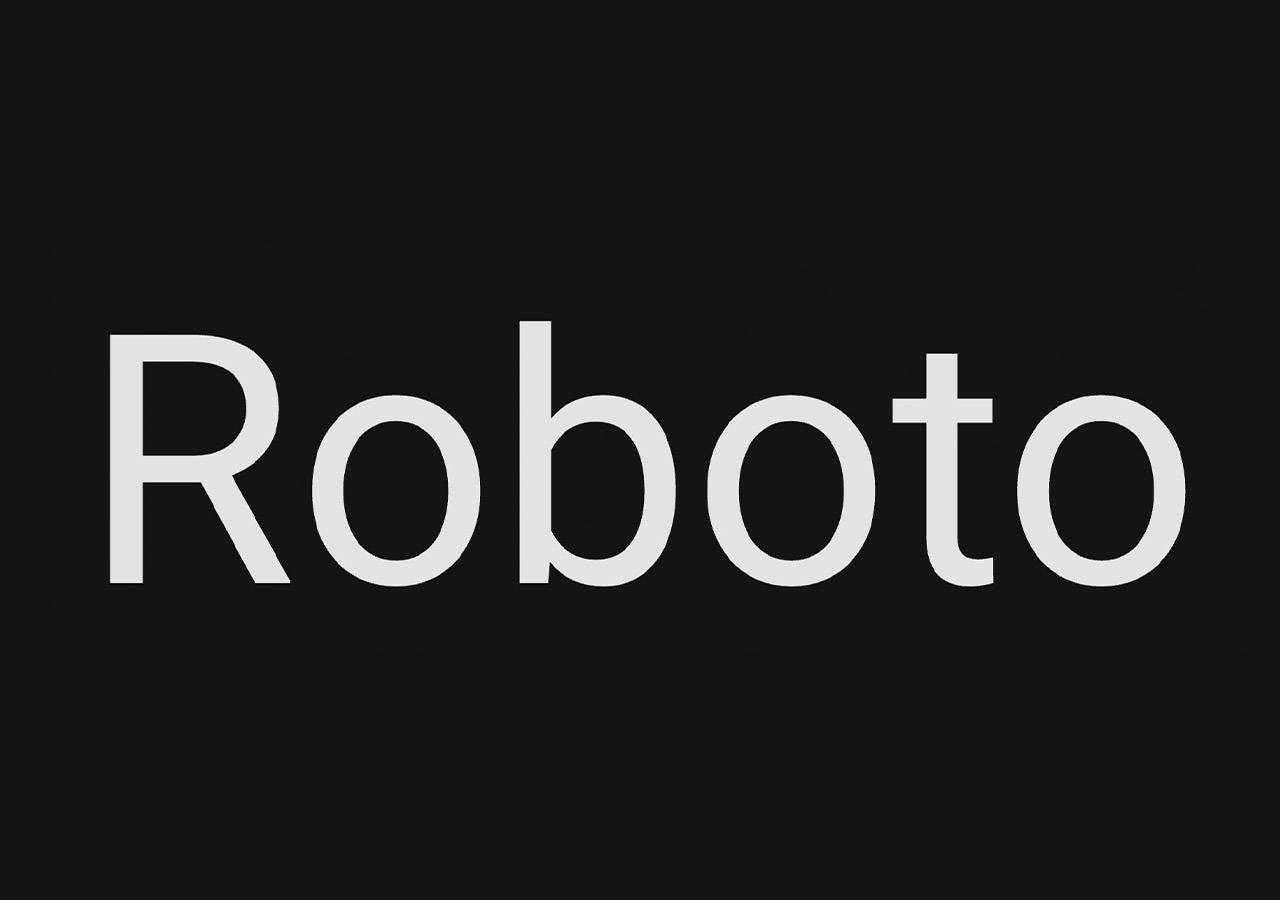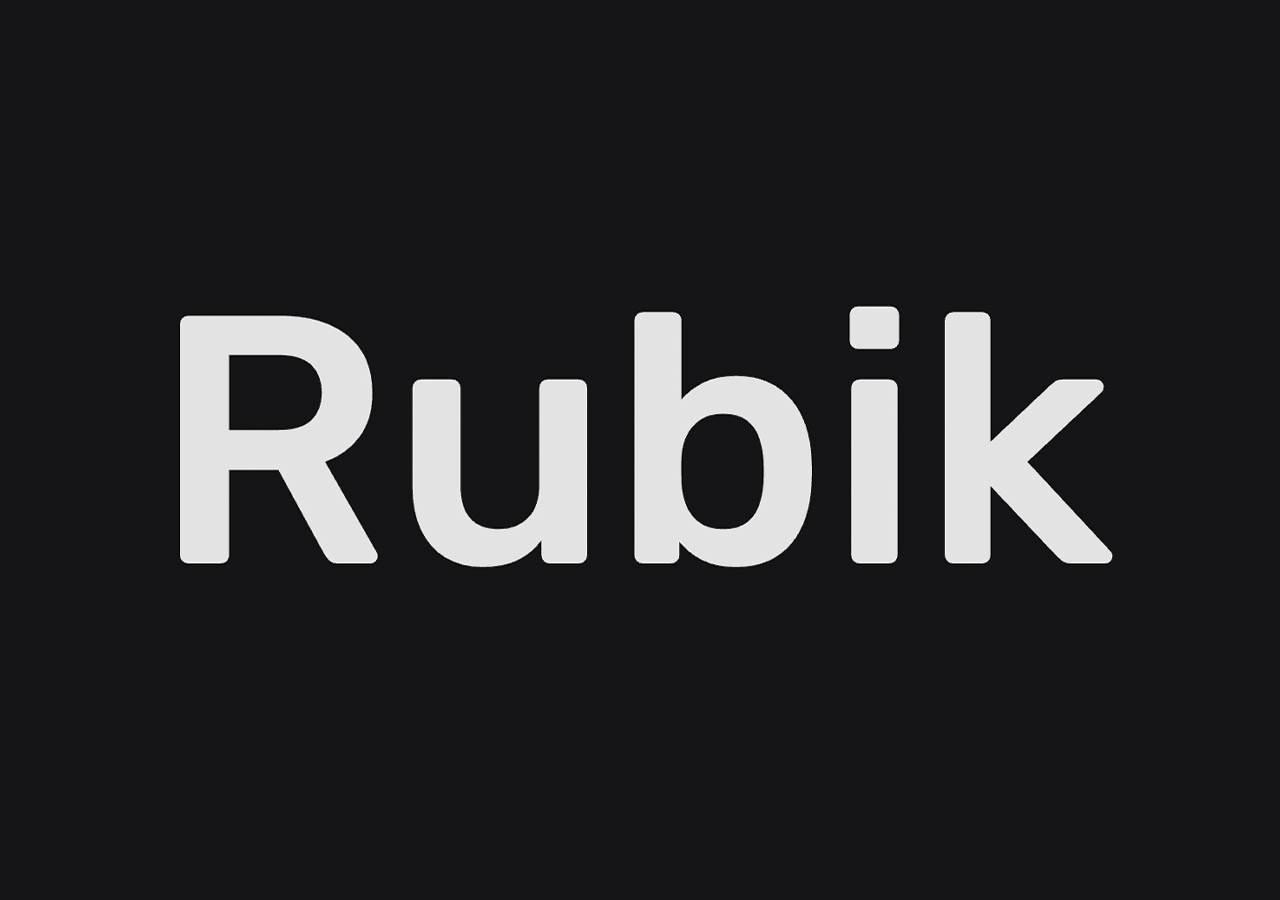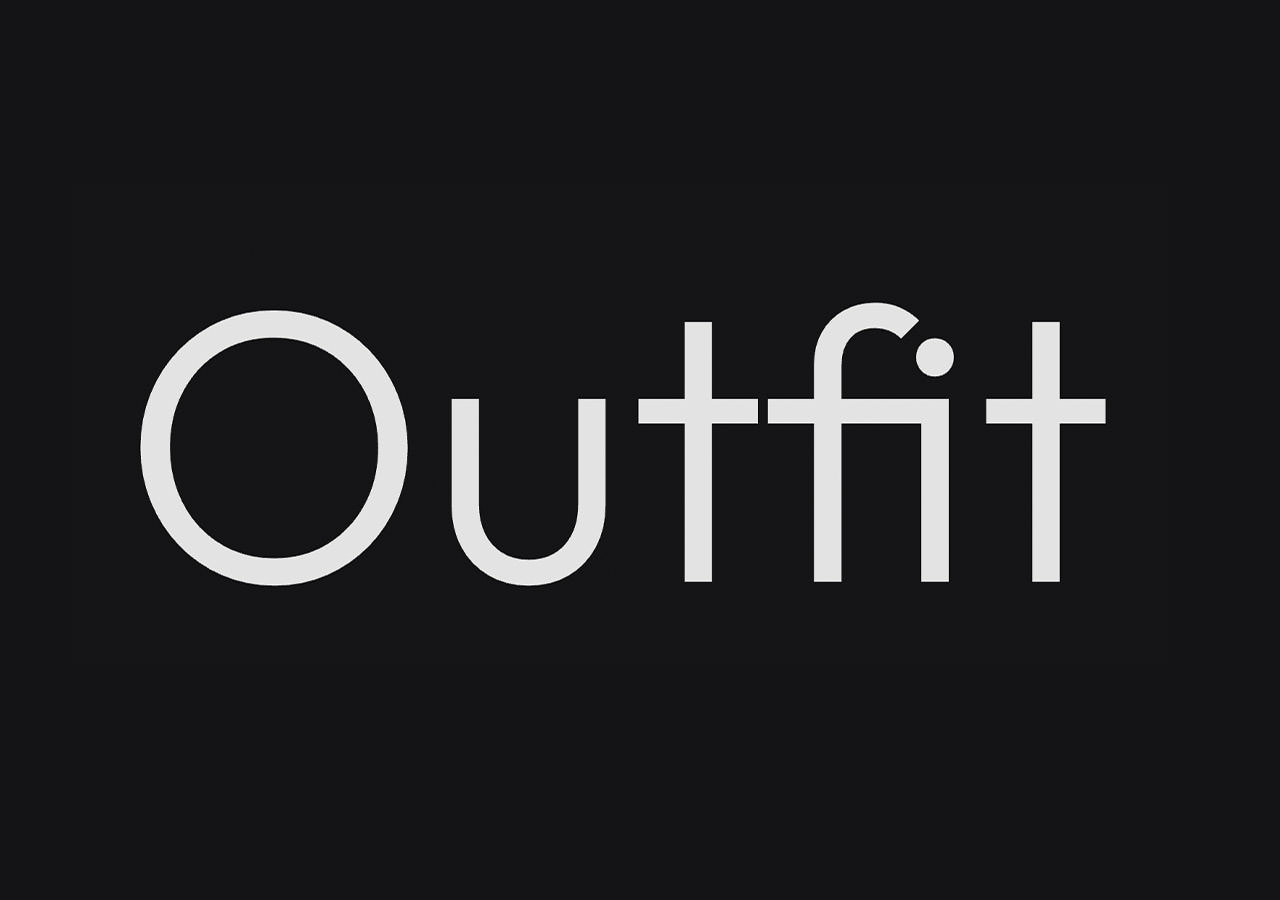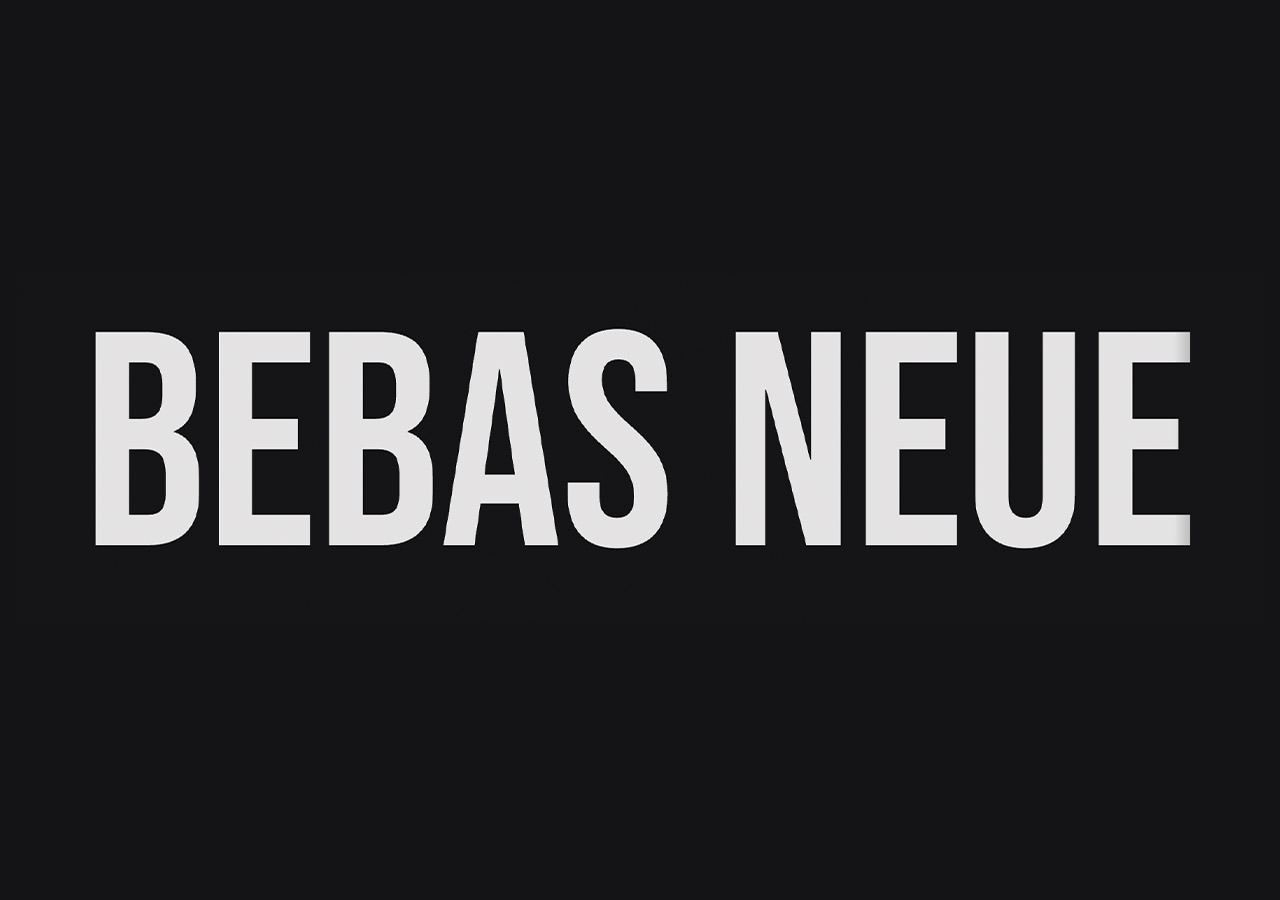
Settling on a font for a symbol sounds easy correct up until you in truth wish to do it.
That is whilst you realize a symbol font has to do a lot more than just look excellent in a mockup. It needs to stay recognizable when it’s tiny, hang up when it’s huge, and nevertheless truly really feel like the emblem whilst you strip the whole thing else away. If you wish to have a reminder of the way so much sort shapes identification, this take a look at fonts utilized in emblems of standard manufacturers is a useful place to start.
The good news is you do not need a paid font library to get there. Free fonts have were given dramatically upper all over the previous couple of years, specifically for those who’re looking at open-source families with a few weights, variable axes, and licensing that is delightful to industry art work.
So I put together a list of loose fonts which may well be in truth useful for logo design. Some are clean and independent. Some have a bit bit additional character. A few are upper for wordmarks, while others are additional eye-catching for those who’re construction something bold.
What Makes a Font Excellent for Trademarks?
A nice-looking font isn’t robotically a excellent logo font.
What in most cases problems additional is this:
- Distinct letterforms so the determine does no longer truly really feel generic
- Excellent spacing so the wordmark holds together at different sizes
- A few weights so you’ll have room to find
- Clean curves and terminals that survive scaling
- Enough character to truly really feel branded, then again no longer this kind of lot that it becomes exhausting to use
If a font seems great in a heading then again falls apart in a favicon, it is probably not the one.
20 Very best Free Fonts for Emblem Design
1. Montserrat
Montserrat is still one of the vital maximum protected places to start.
It’s geometric, clean, and easy to shape into a modern wordmark. The family is huge enough that you simply’ll have the ability to go from mild and trendy to bold and assertive without switching typefaces. If you are working on a tech brand, corporate identification, or startup logo, this is in most cases a formidable first risk.
2. Poppins
Poppins has a friendlier truly really feel than Montserrat, then again it nevertheless seems polished.
Its proportions are tidy, its rounds truly really feel intentional, and it truly works specifically neatly for producers that wish to truly really feel stylish without turning into cold. I find it irresistible for e-commerce, apps, and product-led corporations that want something approachable.
3. Inter
Inter was designed for screens, then again it holds up strangely neatly in trademarks too.
It’s now not flashy, and that’s exactly the aim. If you want a mark that feels recent, independent, and trustworthy, Inter provides you with a very cast base. Moreover it is without doubt one of the maximum absolute best fonts to customize with spacing and weight tweaks.
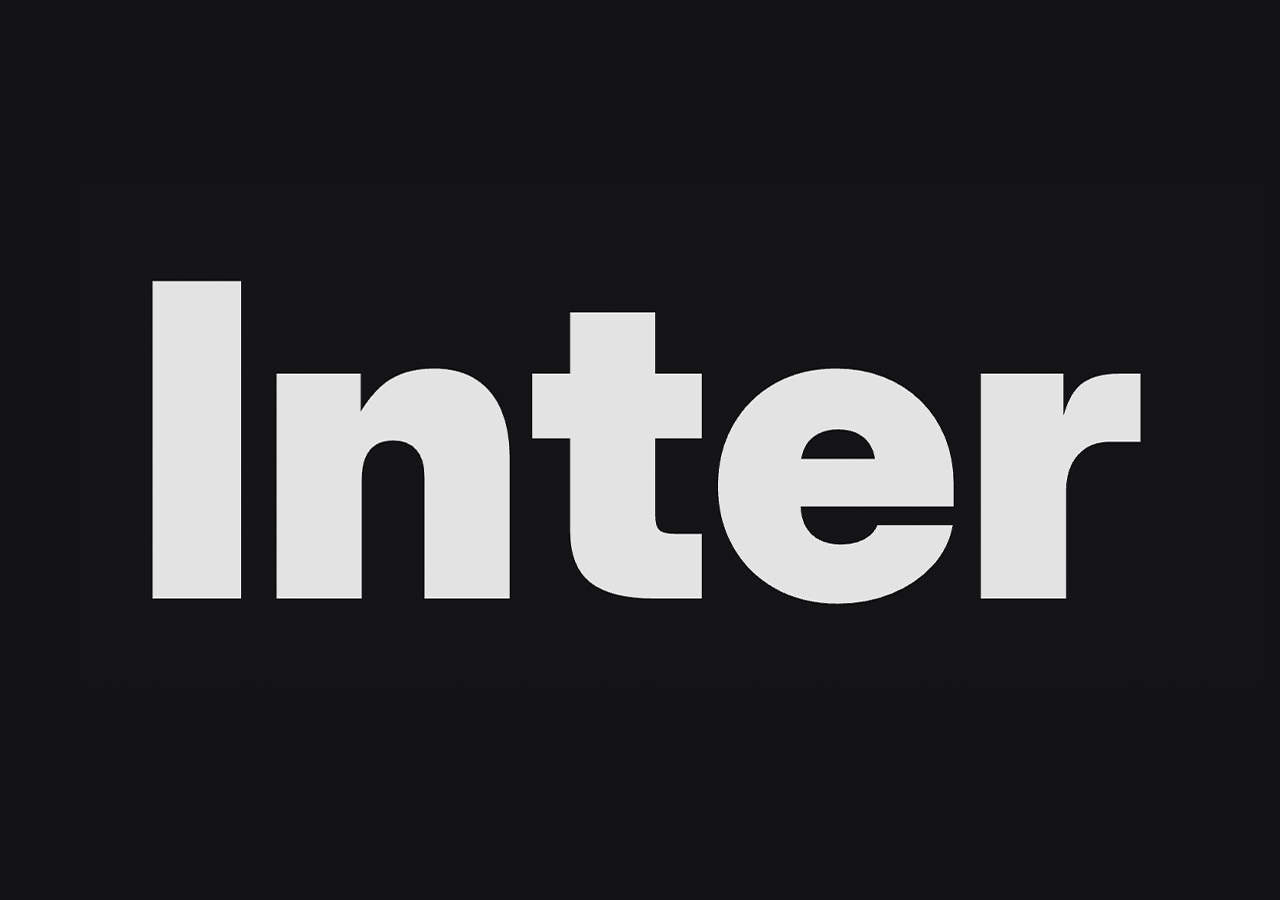
4. Geist
Geist feels sharp without making an attempt too exhausting.
It has that clean neo-grotesque energy a large number of more moderen tech producers lean in opposition to, then again it does no longer truly really feel sterile. If you are construction a minimal logo for a tool product, AI software, or developer-facing brand, Geist is price checking out early.
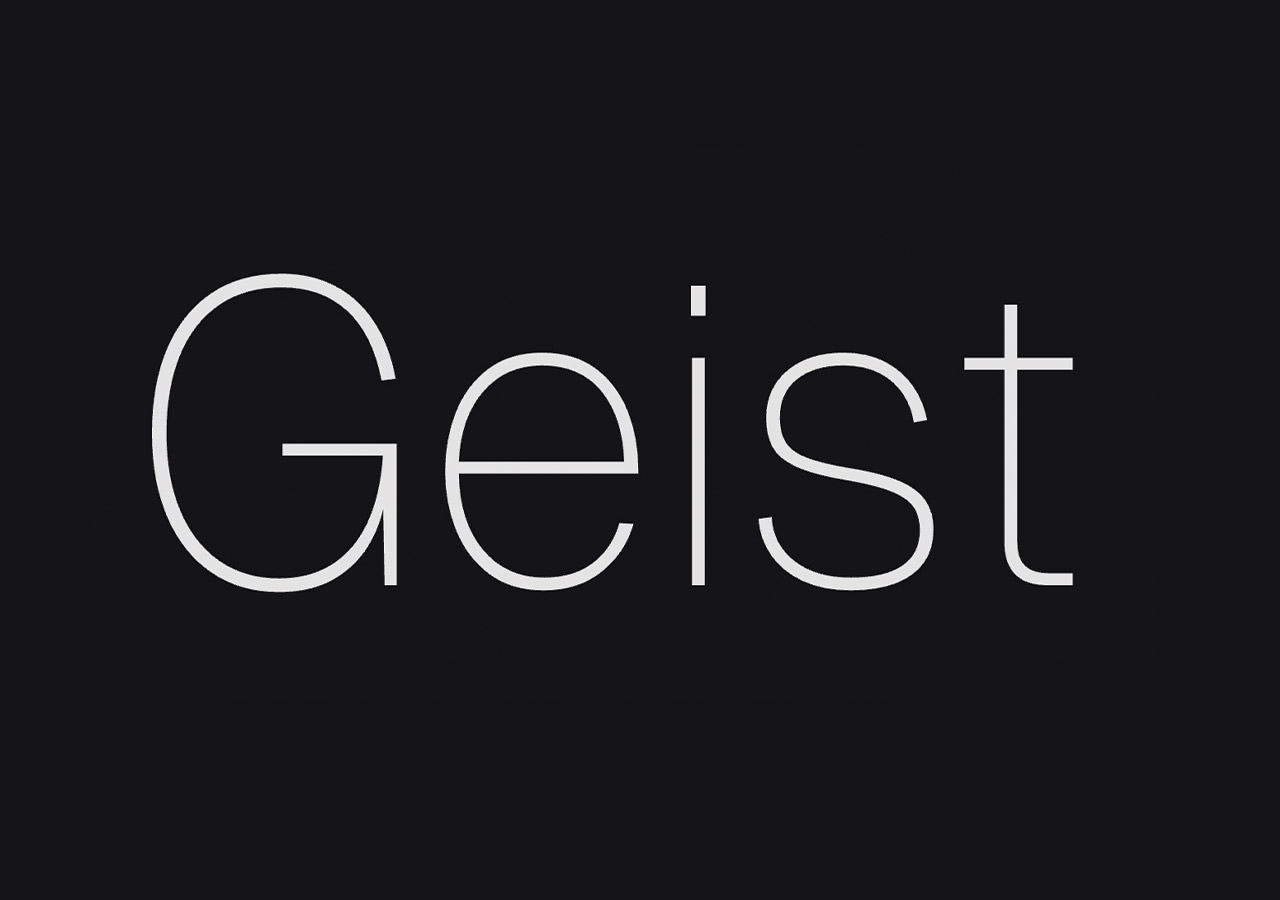
5. DM Sans
DM Sans sits in a satisfying middle floor.
It’s stylish, low-contrast, and easy to art work with, then again it nevertheless has enough warmth to avoid feeling anonymous. It is a excellent risk when you want a symbol to truly really feel provide {{and professional}} without turning into too corporate.
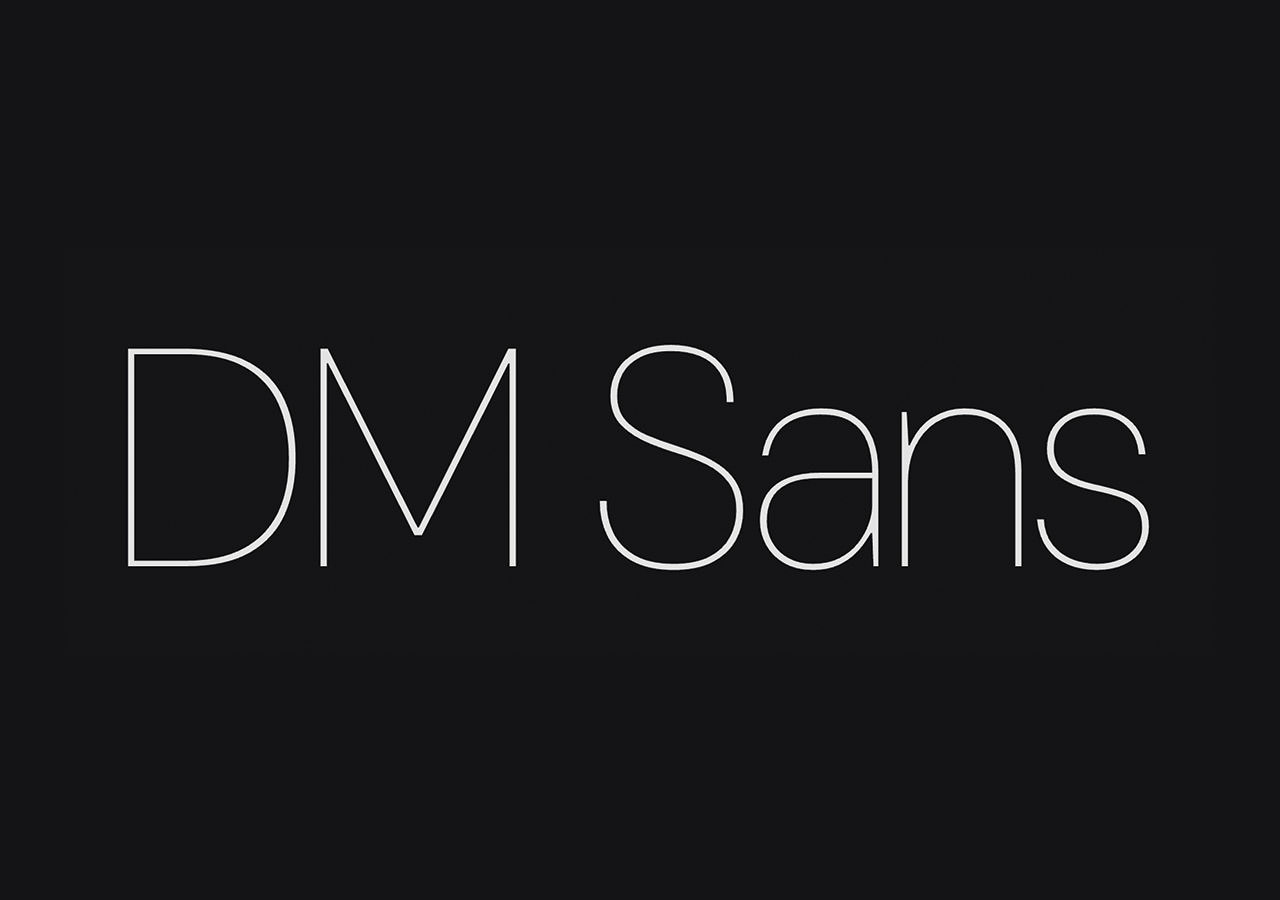
6. Space Grotesk
If you want something with a bit bit additional character, Space Grotesk is a strong pick.
It helps to keep the clarity of a sans-serif, then again its shapes truly really feel additional distinctive than the usual geometric conceivable alternatives. That makes it useful for AI, gaming, ingenious tooling, and kinds that wish to truly really feel stylish with slightly of of edge.
7. Artwork Sans
Artwork Sans is discreet in an effective way.
It does no longer shout, then again it’s going to come up with a clean development that is easy to imagine. For trademarks that want to truly really feel robust, professional, and no longer trend-chasing, this one works neatly. Assume consulting, SaaS, or internal tools that still need a proper identification.
8. Oswald
Oswald is narrow, bold, and truly exhausting to omit about.
If you wish to have a symbol to hit harder in tighter horizontal area, this is a useful risk. It truly works neatly for streetwear, sports activities actions, packaging, and any wordmark that benefits from a condensed silhouette.
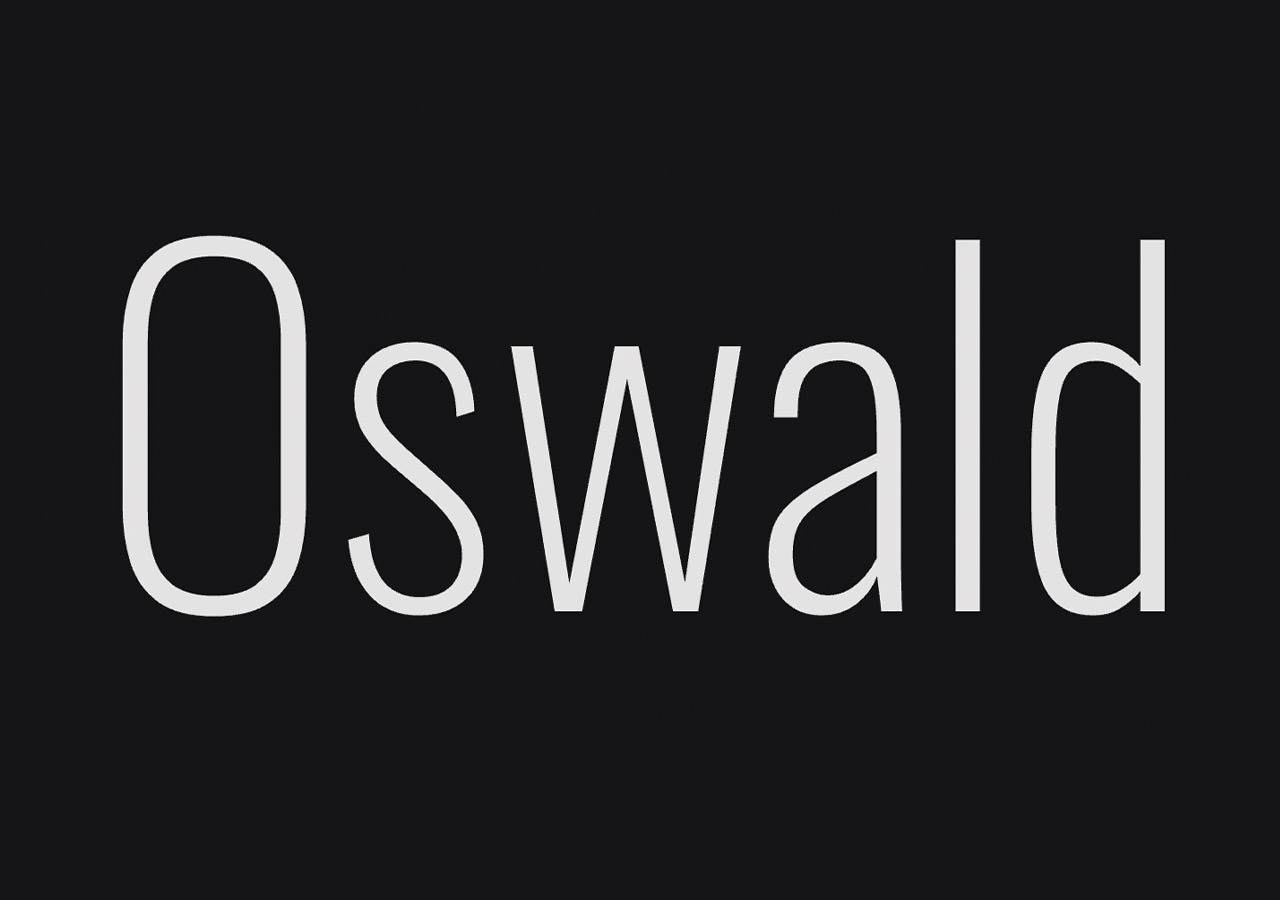
And if the aim is elegance, Raleway and Playfair Display are nevertheless very exhausting to triumph over.
The best choice, as usual, is dependent upon the emblem. Then again no less than now you do not need to spend money merely to get into the suitable network.
If I had to make a choice 3 to test first for most present logo projects, I’d get began with Montserrat, Geist, and Manrope.